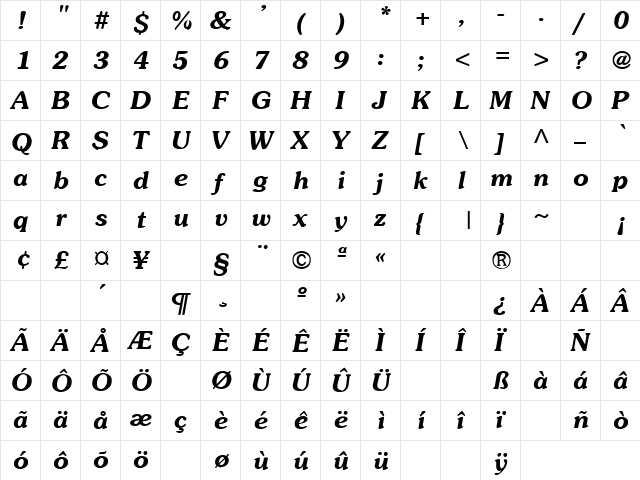
Inflation 1 Regular
Design Context for Inflation 1 Typeface
Inflation 1 takes a measured approach to typography — its balanced proportions and neutral character make it a reliable workhorse for both digital and print work.